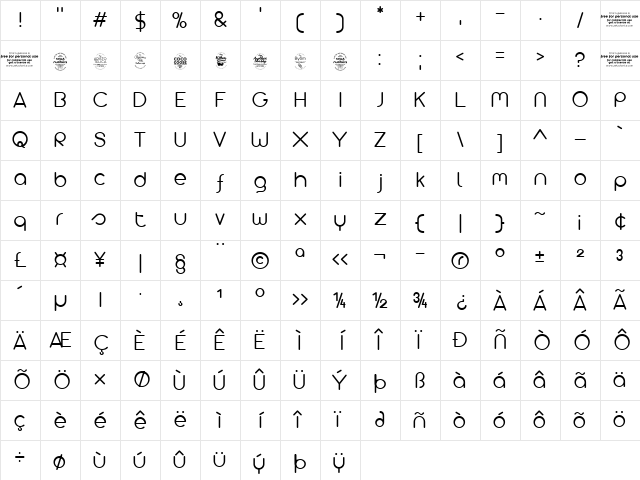
Arista 2.0 Alternate Light Regular
Foundry: studio kmzero
Designer: Francesco Canovaro
Design Context for Arista 2.0 Alternate Light
Arista 2.0 Alternate Light is a composed and adaptable typeface that performs quietly and consistently across a wide range of design contexts. Its slender proportions lend an understated elegance to any composition.